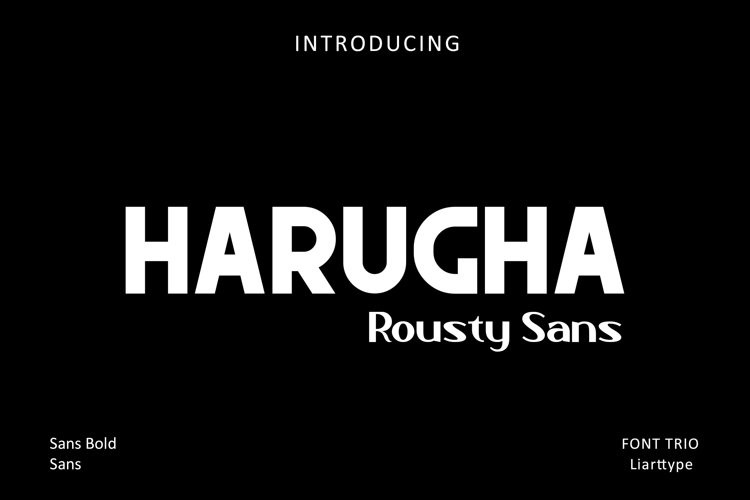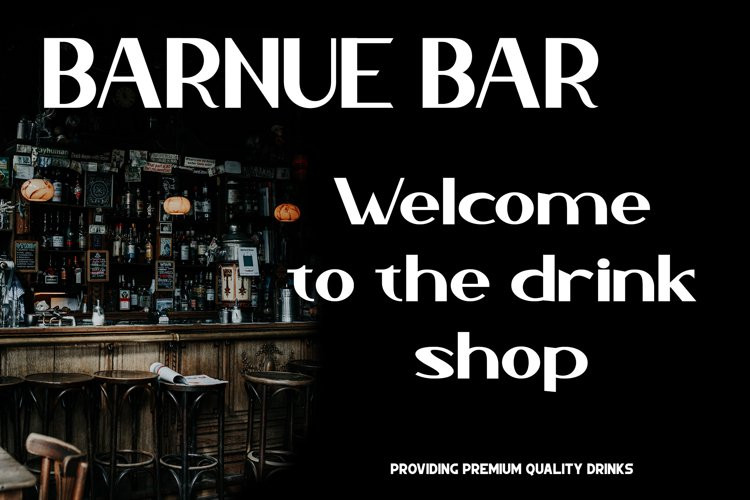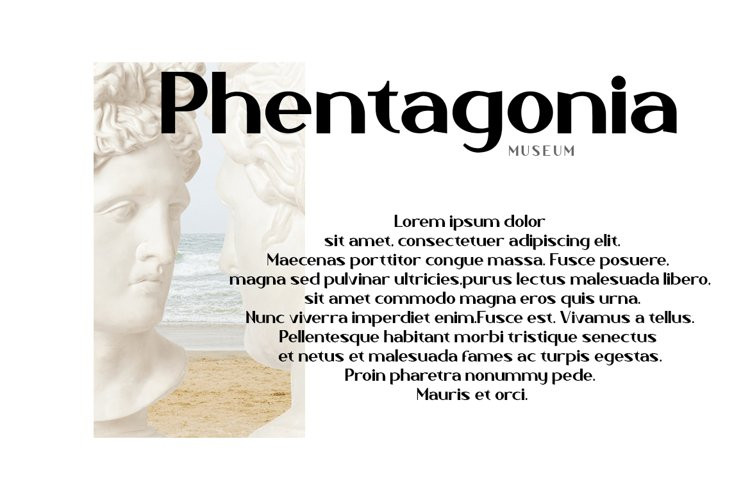
Harugha Font
Harugha FontMeet our newest product, we call this product Harugha Rousty Line font.
The Harugha Rousty Line font is a matching slab and sans duo font
who can help your work in making
fashion magazines, logos, photography, landing pages, flyers,